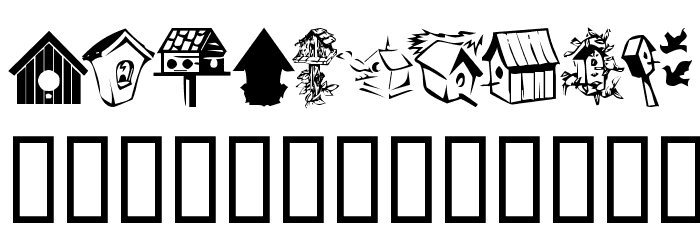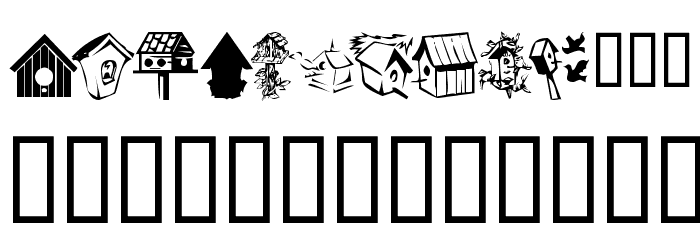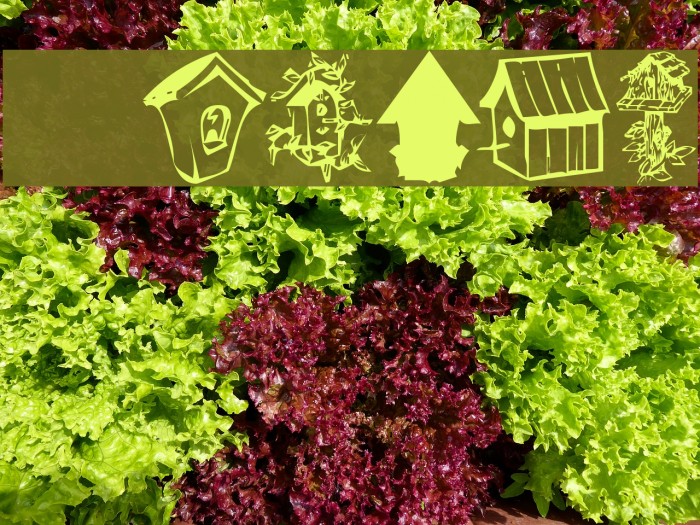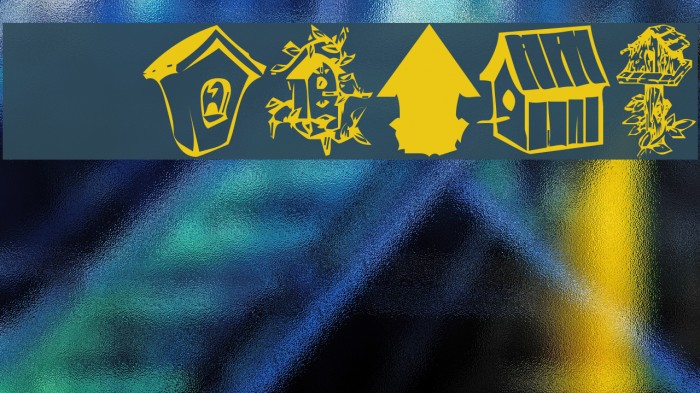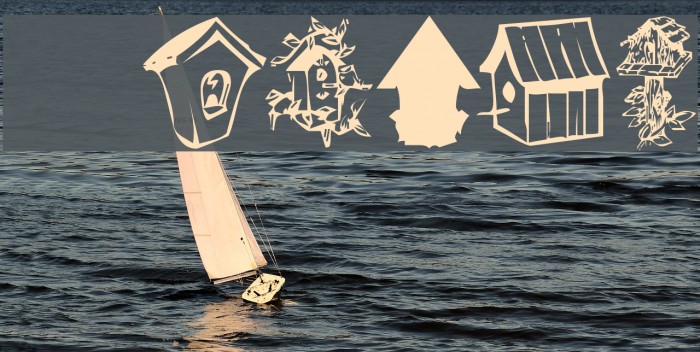
KR Birdhouse Font
This is a decorative font featuring a variety of birdhouse illustrations. Each character is represented by a unique birdhouse design, showcasing different architectural styles and artistic elements. The designs are intricate, with some birdhouses adorned with floral motifs or perched birds, adding a whimsical and playful touch. The font is highly illustrative, making it more of a visual art piece than a traditional text font. The characters are bold and detailed, capturing the essence of handcrafted birdhouses, which can evoke a sense of nature and creativity.
A decorative font with intricate birdhouse illustrations for each character.
- Proposed Projects: Ideal for nature-themed projects, children's books, garden event invitations, or any creative work that benefits from a whimsical and artistic touch.
- Use Case: Logos, Decorative headings, Artistic projects